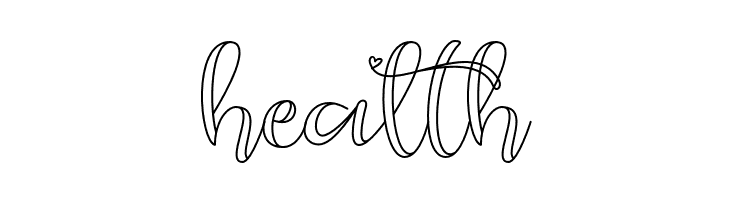
A playful script font with heart motifs and flowing strokes.
A playful and whimsical script font with a hand-drawn, cursive style.
A romantic, heart-embellished cursive font with an elegant italic style.
A romantic and elegant script font with flowing, cursive letters.
A playful, cursive font with a whimsical, handwritten style.
A romantic, cursive font with elegant, flowing lines and ornate details.
A charming and fluid script font with elegant, flowing lines and smooth curves.
A playful handwritten font with heart accents, perfect for romantic and casual designs.
A playful, romantic script font with tall, narrow letters and whimsical loops.